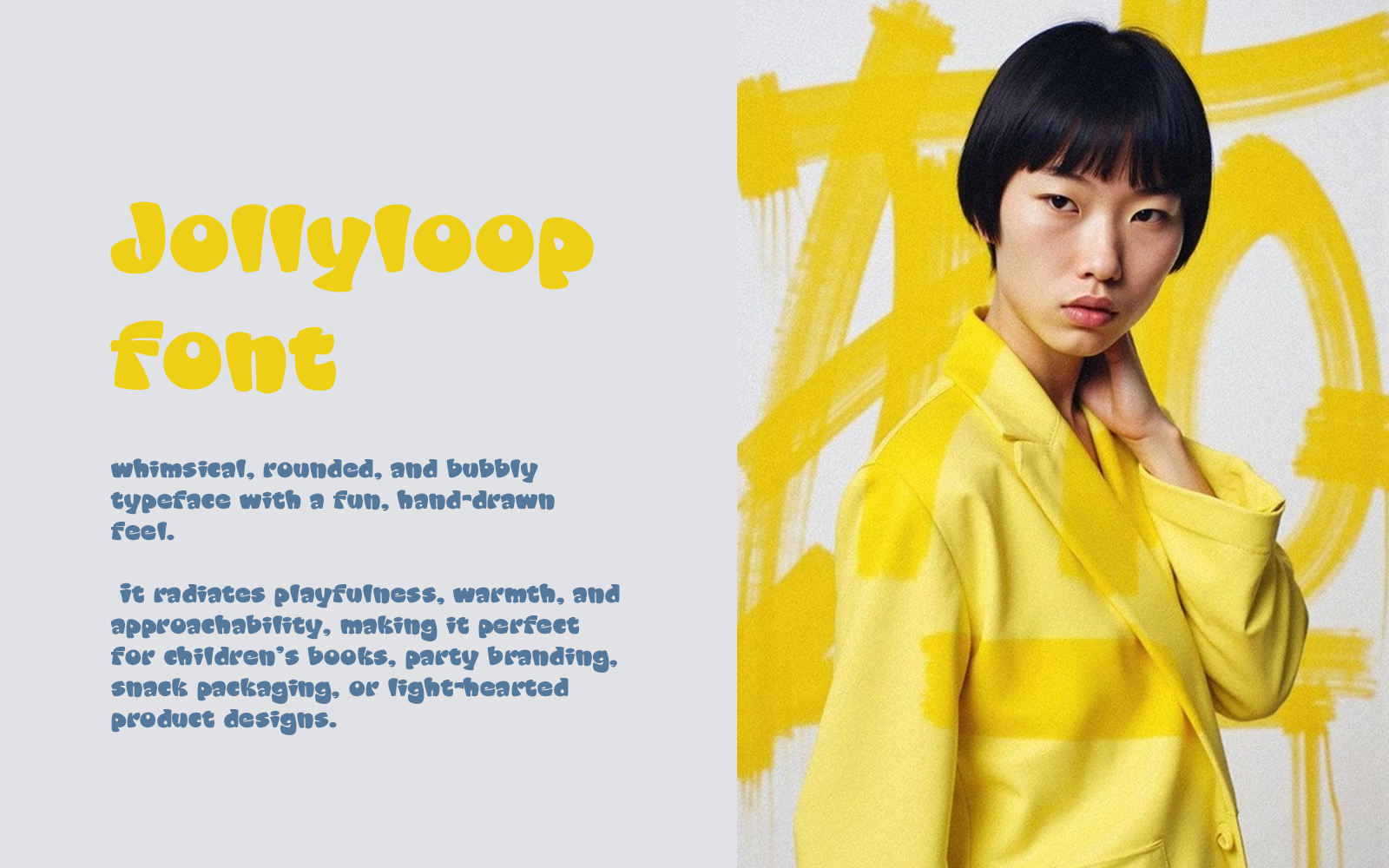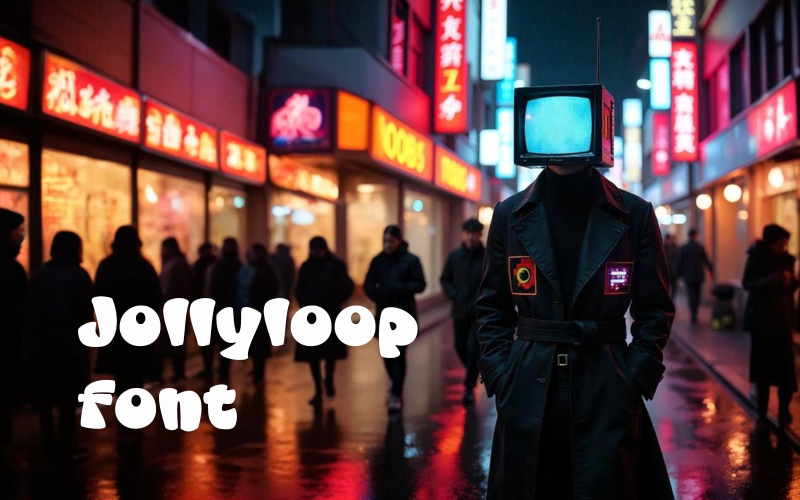
Jollyloop font-Regular-072-25 Font
Introducing Jollyloop—the font that brings your words to life with bounce and charm.
Every curve is a smile, every letter a little celebration.
Ideal for packaging, parties, and playful brands that don’t take life too seriously.
It’s as fun to read as it is to use.
Jollyloop: Where type meets joy.